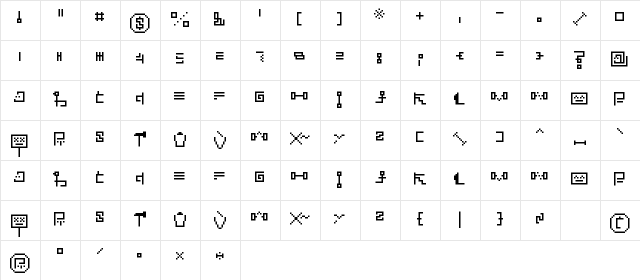
Average symbol Regular
| Foundry | memesbruh03 graphics |
| Designer | memesbruh03 |
Design Context for Average symbol Typeface
Average symbol is a composed and adaptable typeface that performs quietly and consistently across a wide range of design contexts.